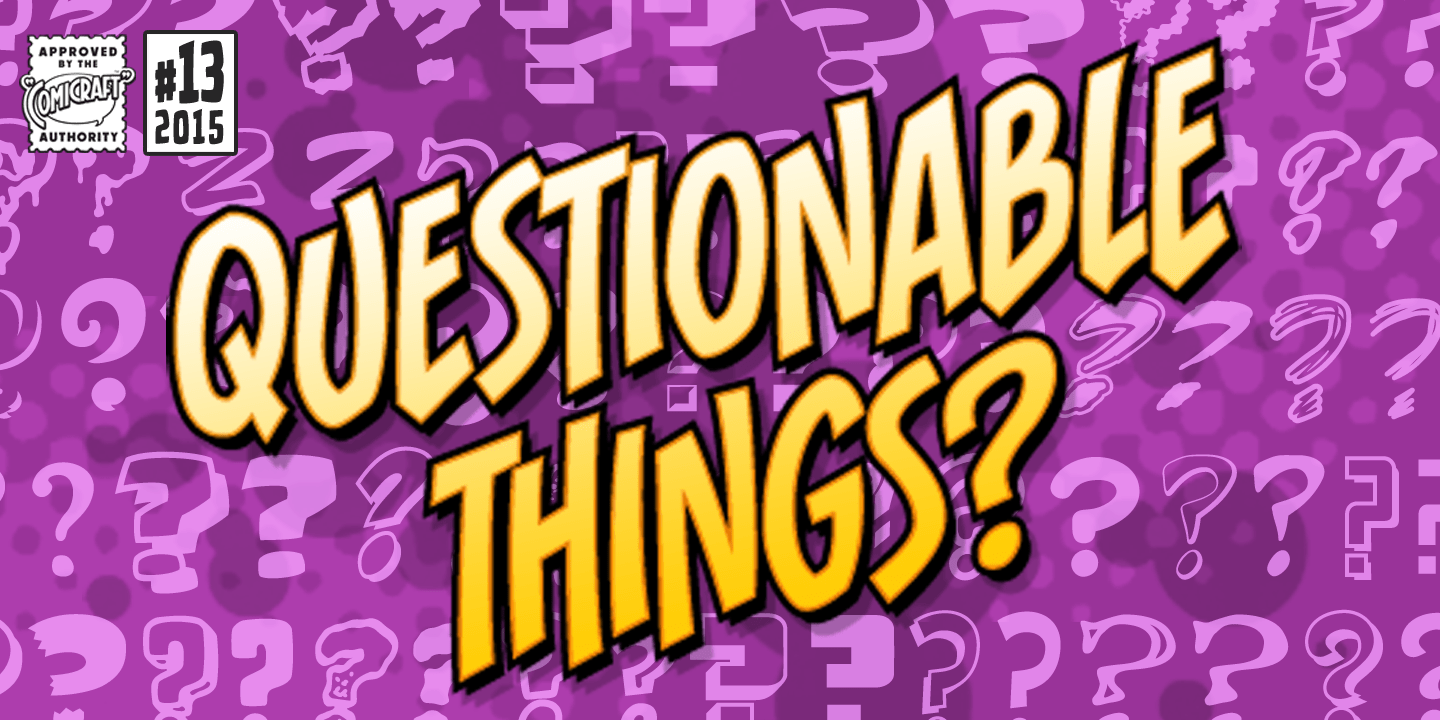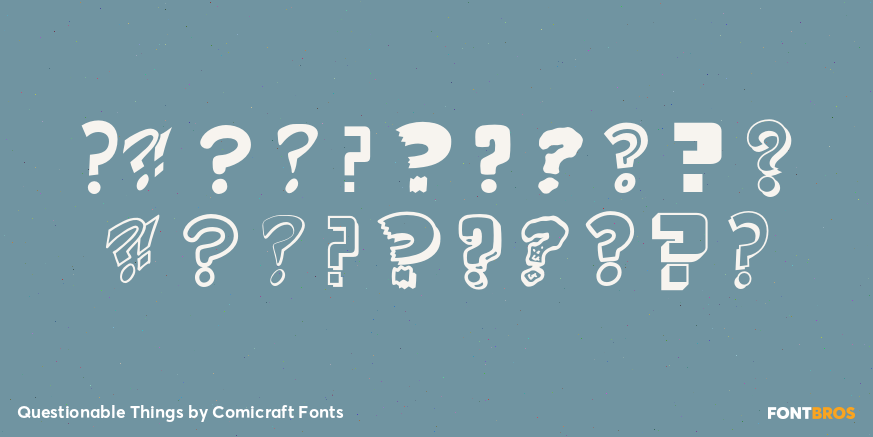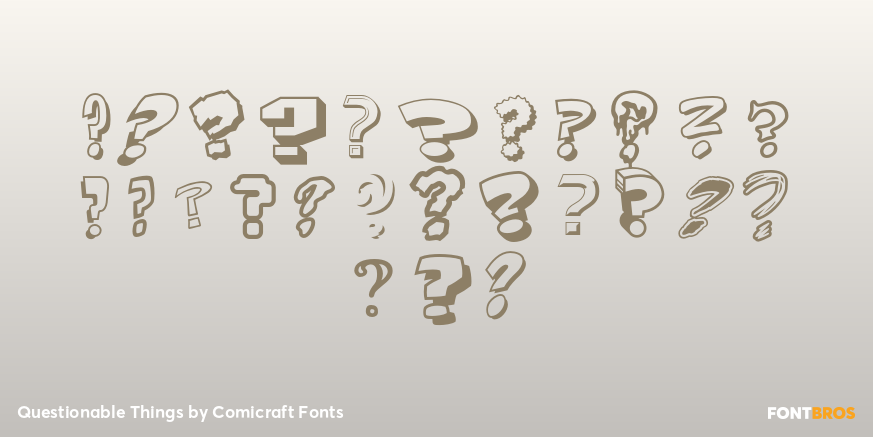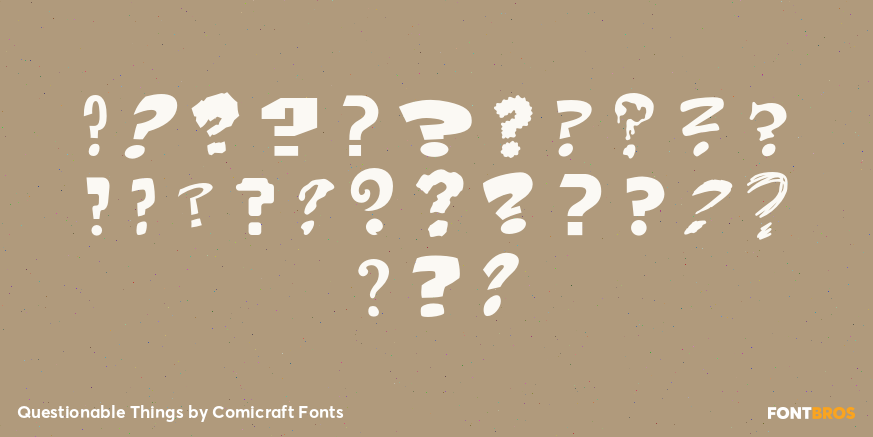
Questionable Things
Font Family by Comicraft Fonts
Have you been marking your words quixotically lately? Can't choose between an interrogative and a questionnaire? It can be quite the problem during question time, so we've quickly rounded up a quality quorum of questionable characters so you'll never be short of a Q during a Q&A.